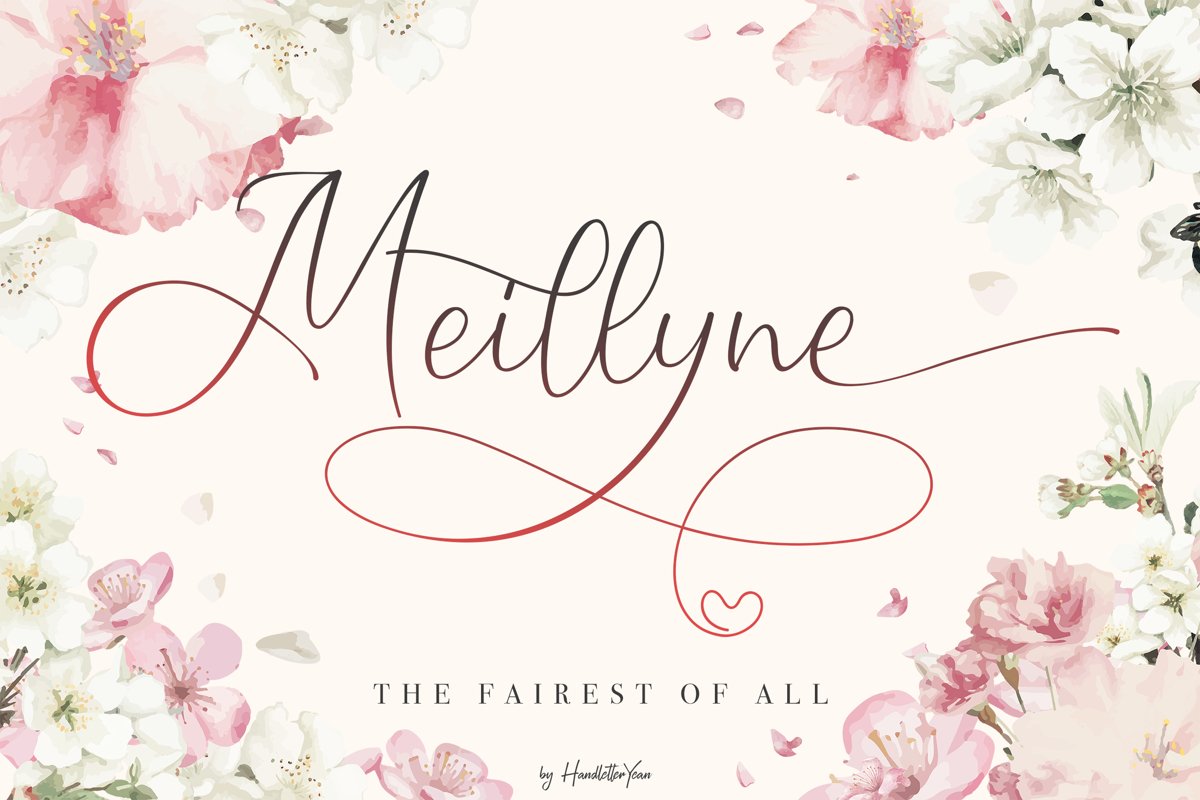
Meillyne
Your heart knows what it wants and it wants the perfect thing for you that's why we present you, Meillyne, the fairest font. This font is stunning, enchanting, and also incredibly modern. This versatile script font has a wide range of applications ranging from greeting cards to headlines and is guaranteed to add a romantic feel to your next project. This font is completed PUA encoded which means you can access all of the beautiful glyphs and swashes with ease! It also features a wealth of special features including stylistic alternate glyphs and ligatures. Fall in love with its gorgeous swashes!